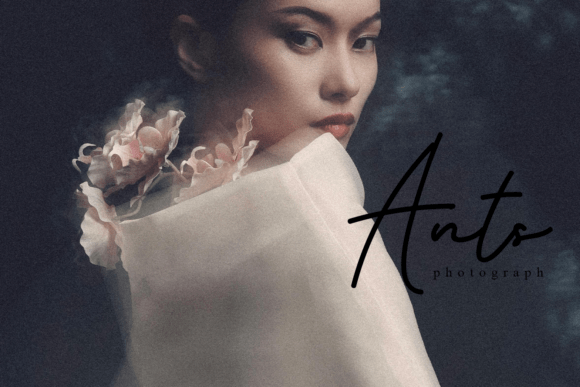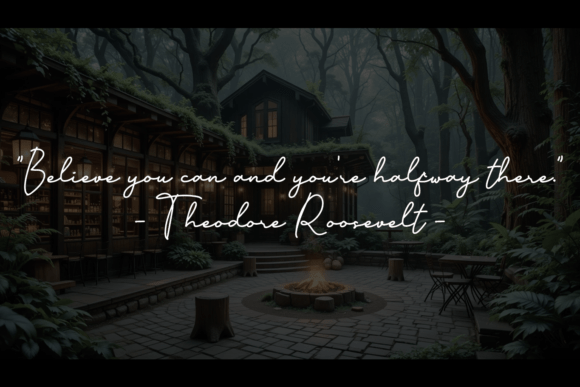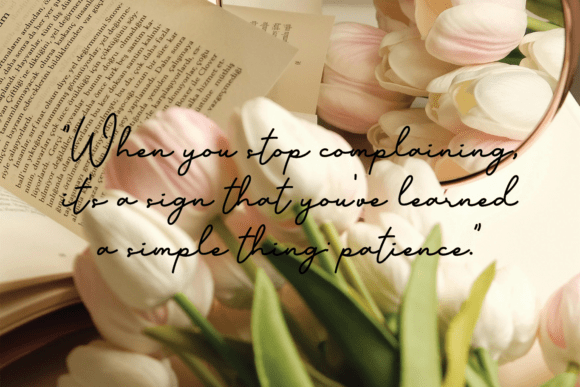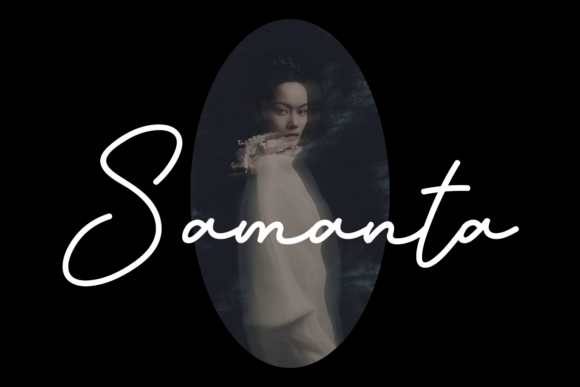
Introducing Forever Font: The Ultimate Choice for Elegant Designs
Are you a designer or crafter looking for a font that exudes elegance and sophistication? Look no further than Forever Font, a beautiful handwritten font that is sure to capture your heart. With its flowing and graceful style, Forever Font is perfect for creating stunning wedding invitations, gorgeous stationery art, eye-catching social media posts, and much more.
The Characteristics of Forever Font
Forever Font is a handwritten font that boasts a chic and stylish aesthetic. Its flowing lines and delicate curves give it a romantic and whimsical feel, making it ideal for designs that require a touch of elegance. The font is highly legible, making it perfect for use in a variety of applications, from digital media to print materials.
Uses of Forever Font
Forever Font is a versatile font that can be used in a multitude of ways. Here are some ideas to get you started:
- Wedding Invitations: Create beautiful and elegant wedding invitations that set the tone for the big day. Forever Font’s flowing style is perfect for formal and informal wedding invitations alike.
- Stationery Art: Add a touch of sophistication to your stationery art with Forever Font. Use it to create gorgeous greeting cards, thank you cards, and more.
- Social Media Posts: Make your social media posts stand out with Forever Font. Its eye-catching style is sure to grab the attention of your followers and make your posts go viral.
- Branding: Use Forever Font to create a cohesive brand identity that exudes elegance and sophistication. Perfect for luxury brands, fashion designers, and more.
Why Choose Forever Font?
So, why should you choose Forever Font for your next design project? Here are just a few reasons:
- Unique Style: Forever Font has a unique and distinctive style that sets it apart from other fonts. Its flowing lines and delicate curves make it a standout choice for designers and crafters.
- Elegant and Sophisticated: Forever Font exudes elegance and sophistication, making it perfect for designs that require a touch of luxury.
- Highly Legible: Forever Font is highly legible, making it perfect for use in a variety of applications, from digital media to print materials.
- Versatile: Forever Font can be used in a multitude of ways, from wedding invitations to social media posts.
Tips for Using Forever Font
Here are some tips for getting the most out of Forever Font:
- Pair it with Other Fonts: Forever Font pairs well with other fonts, so don’t be afraid to experiment with different combinations.
- Use it in Digital Media: Forever Font is perfect for use in digital media, from social media posts to website headers.
- Experiment with Colors: Forever Font looks great in a variety of colors, so don’t be afraid to experiment with different color schemes.
In conclusion, Forever Font is a beautiful and elegant handwritten font that is perfect for designers and crafters looking to add a touch of sophistication to their designs. With its flowing lines and delicate curves, Forever Font is sure to capture your heart and inspire your creativity. Whether you’re creating wedding invitations, stationery art, or social media posts, Forever Font is the ultimate choice for elegant designs.